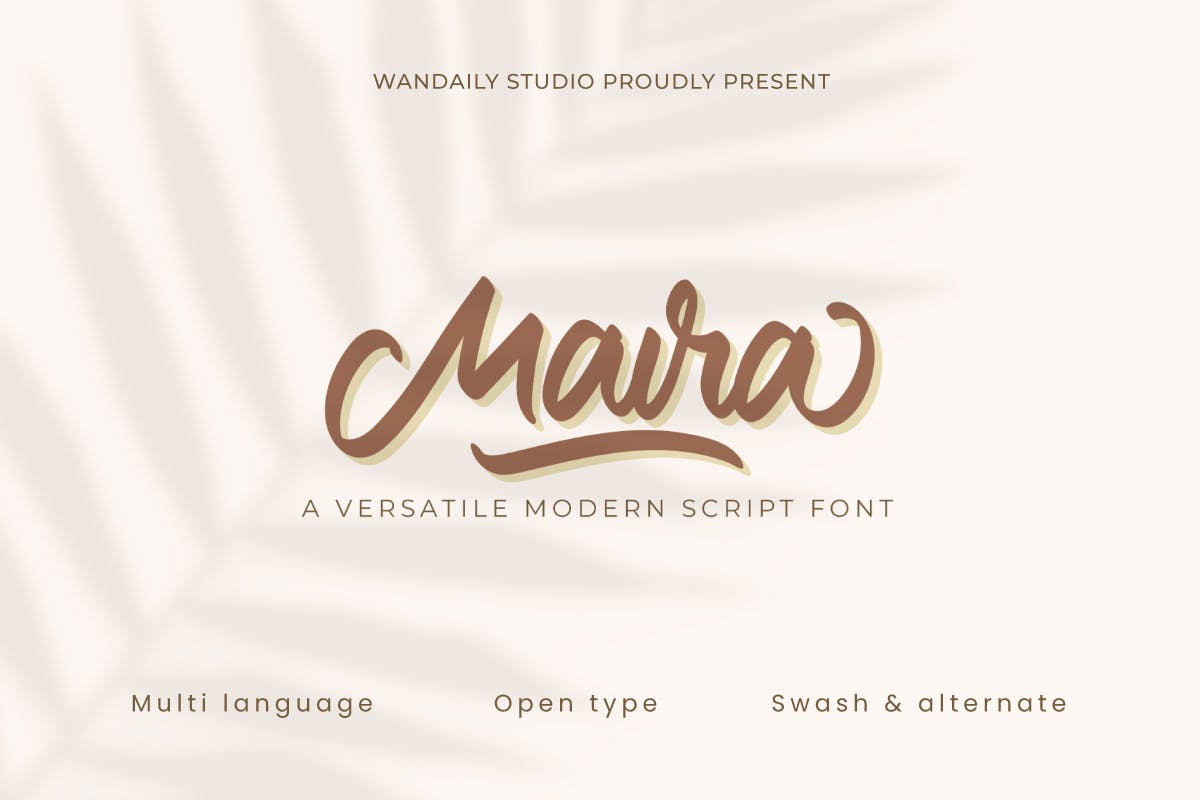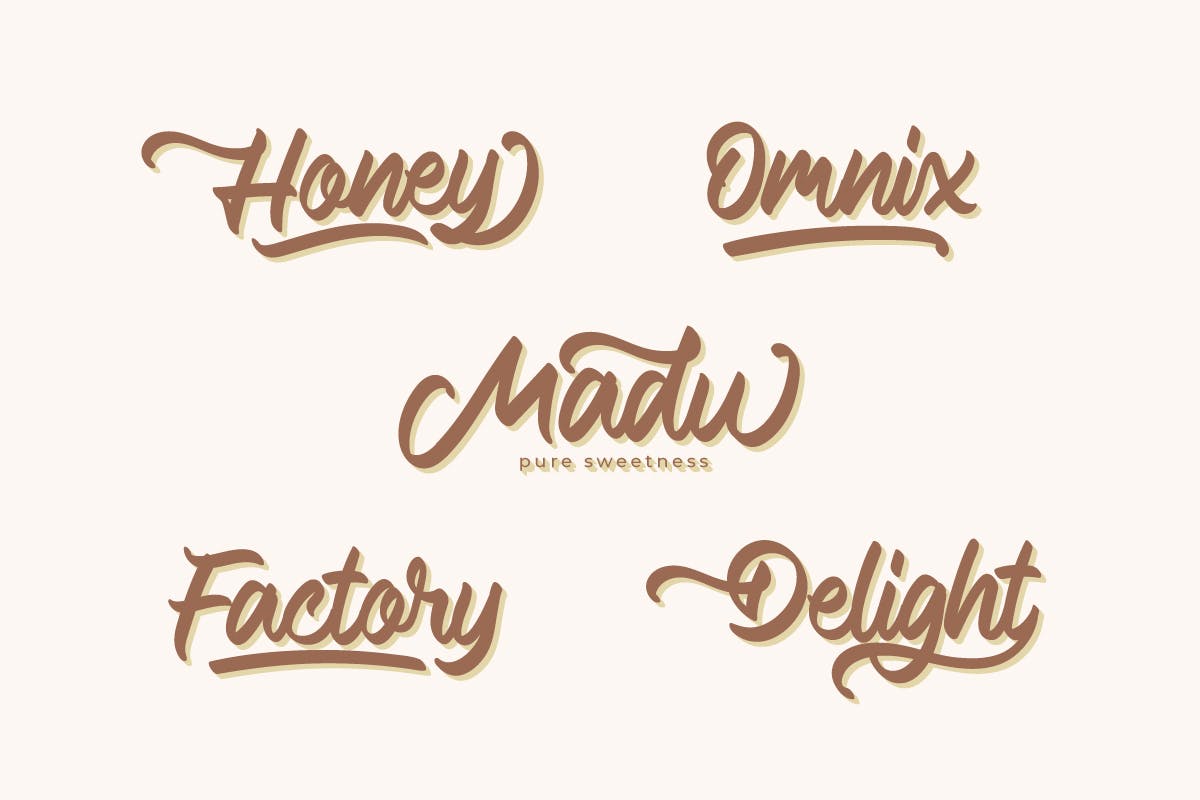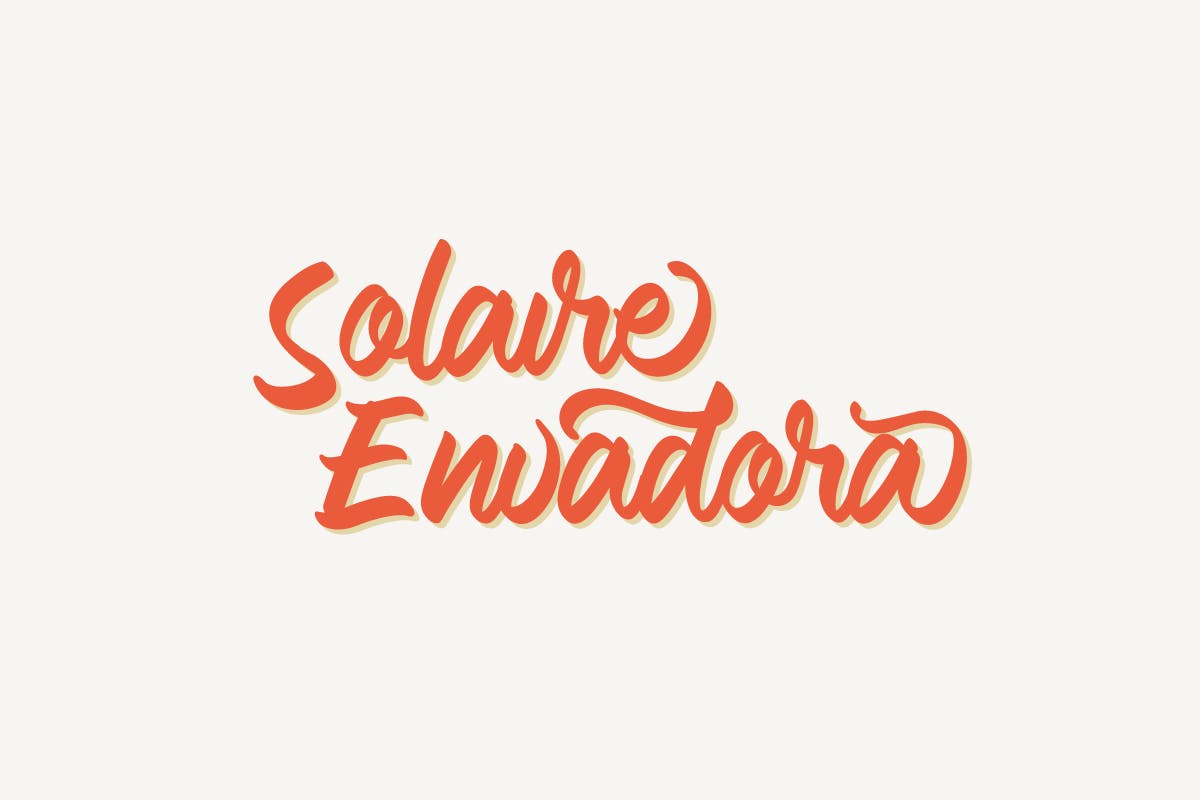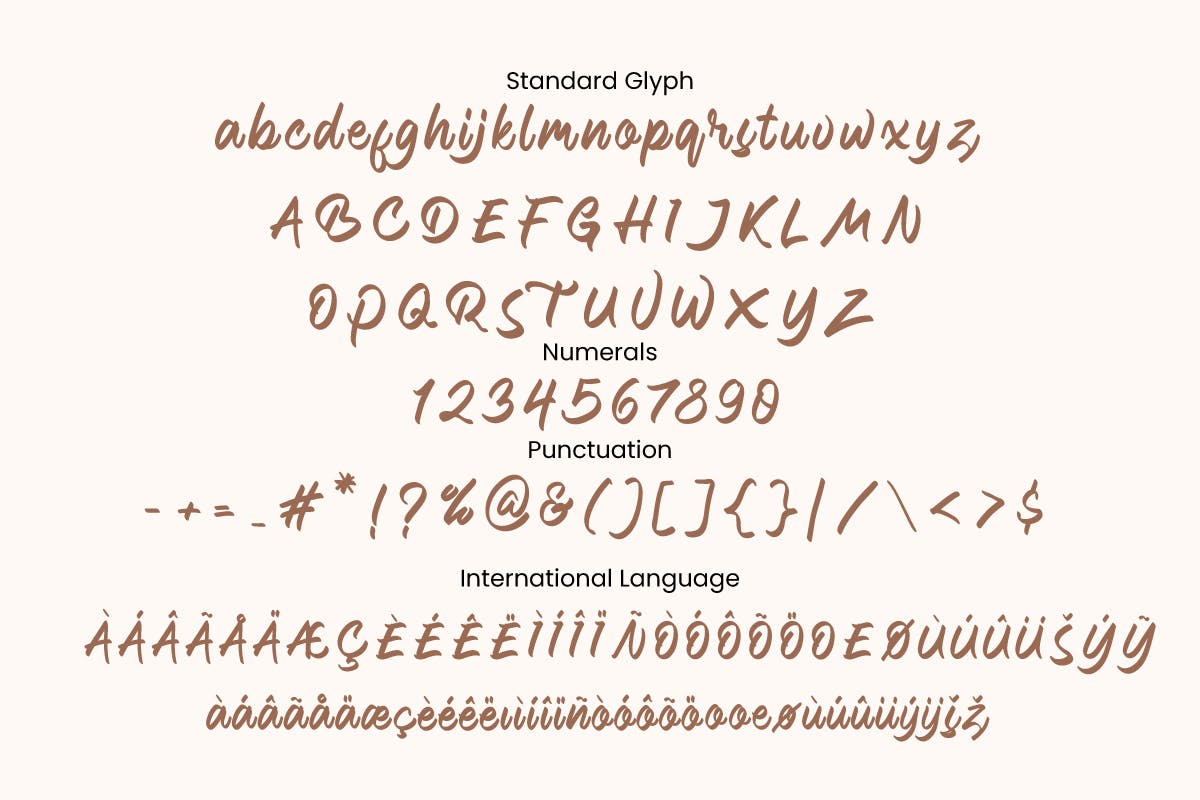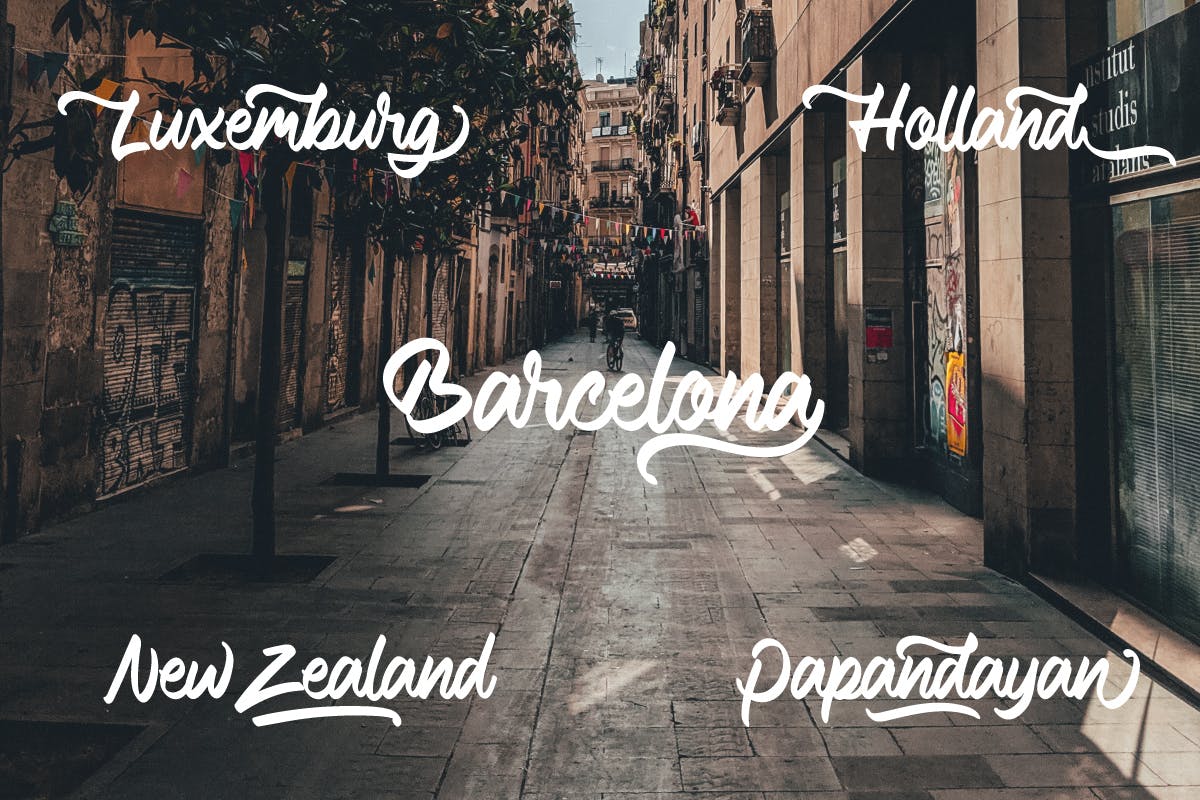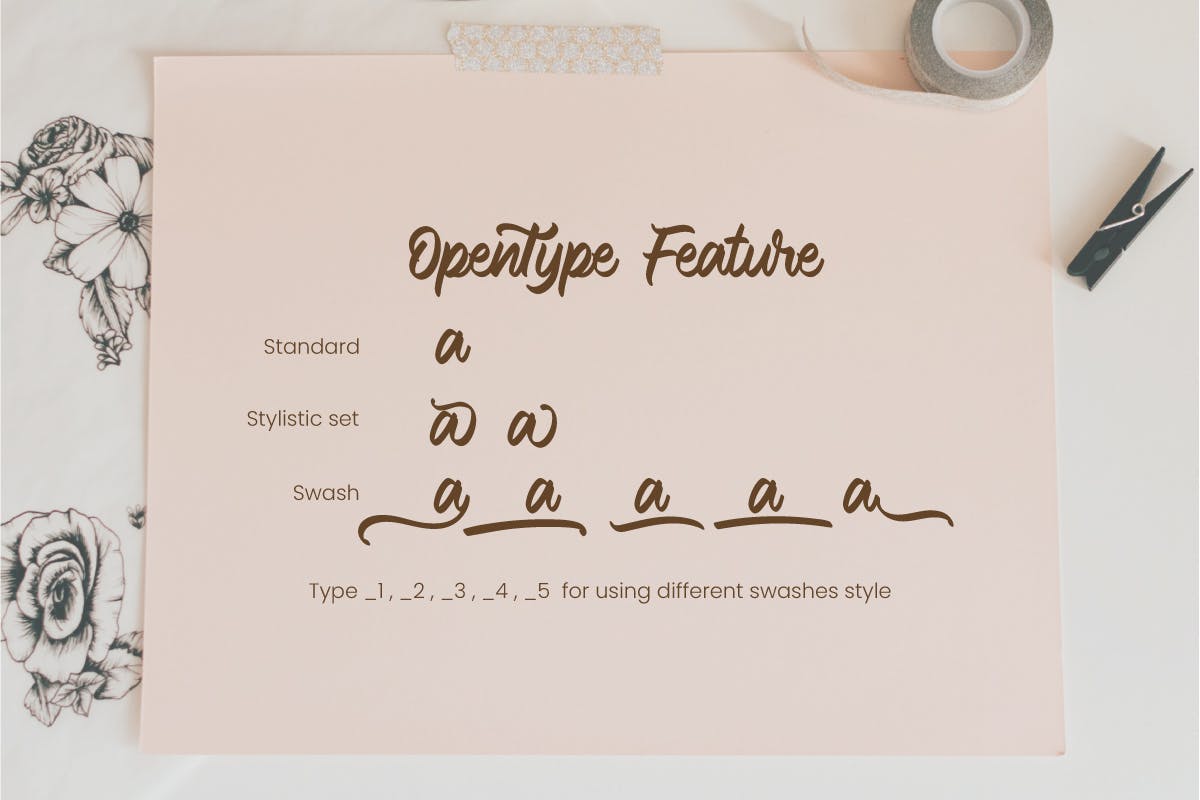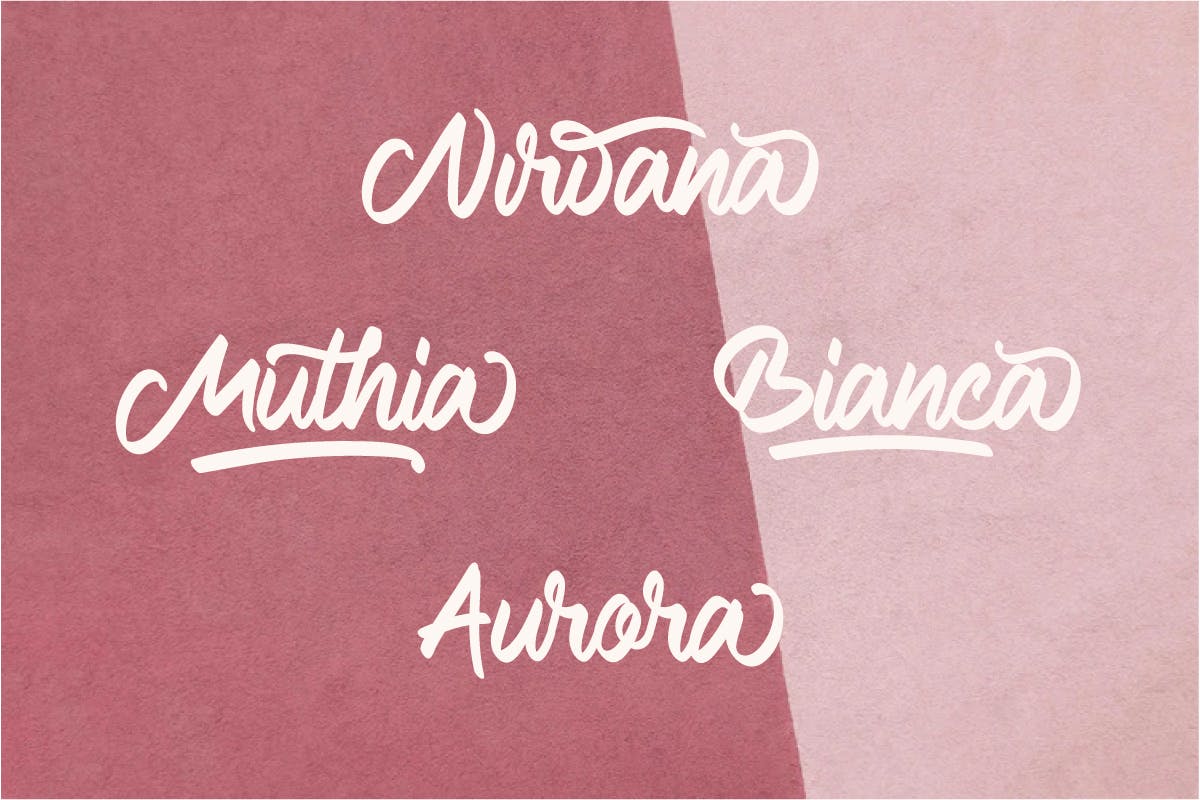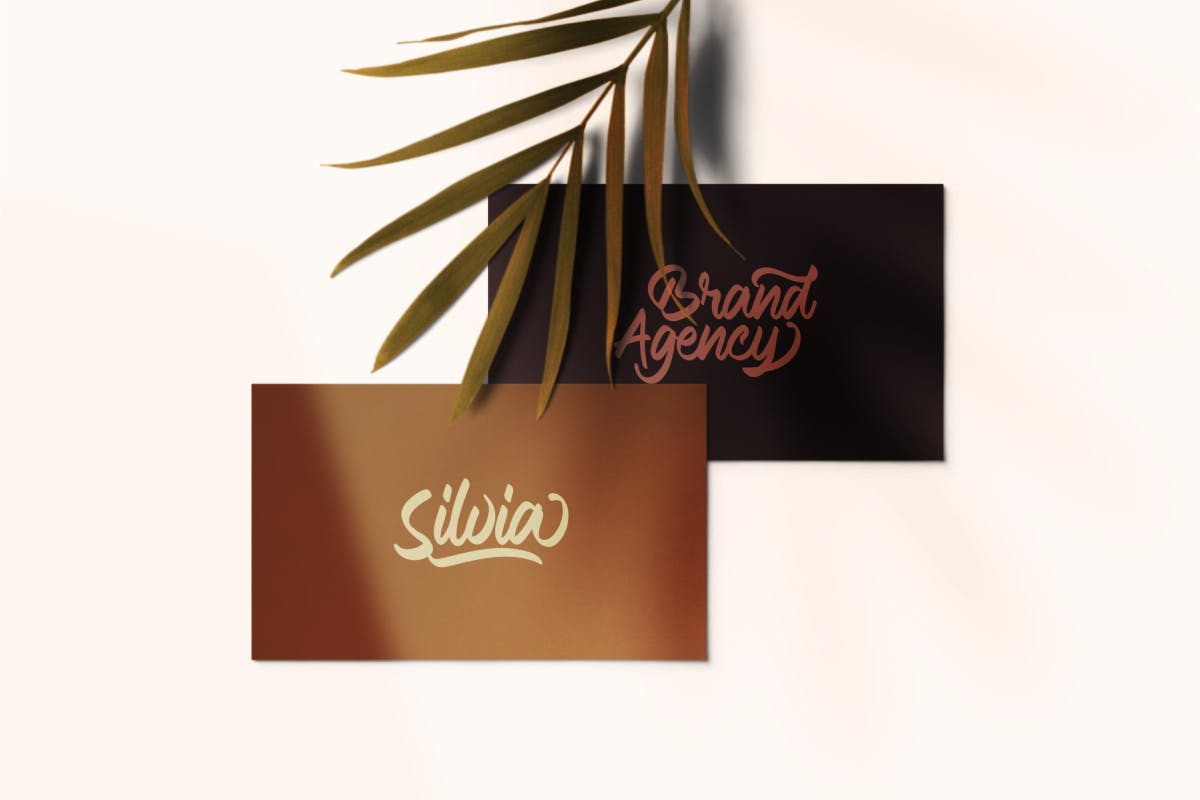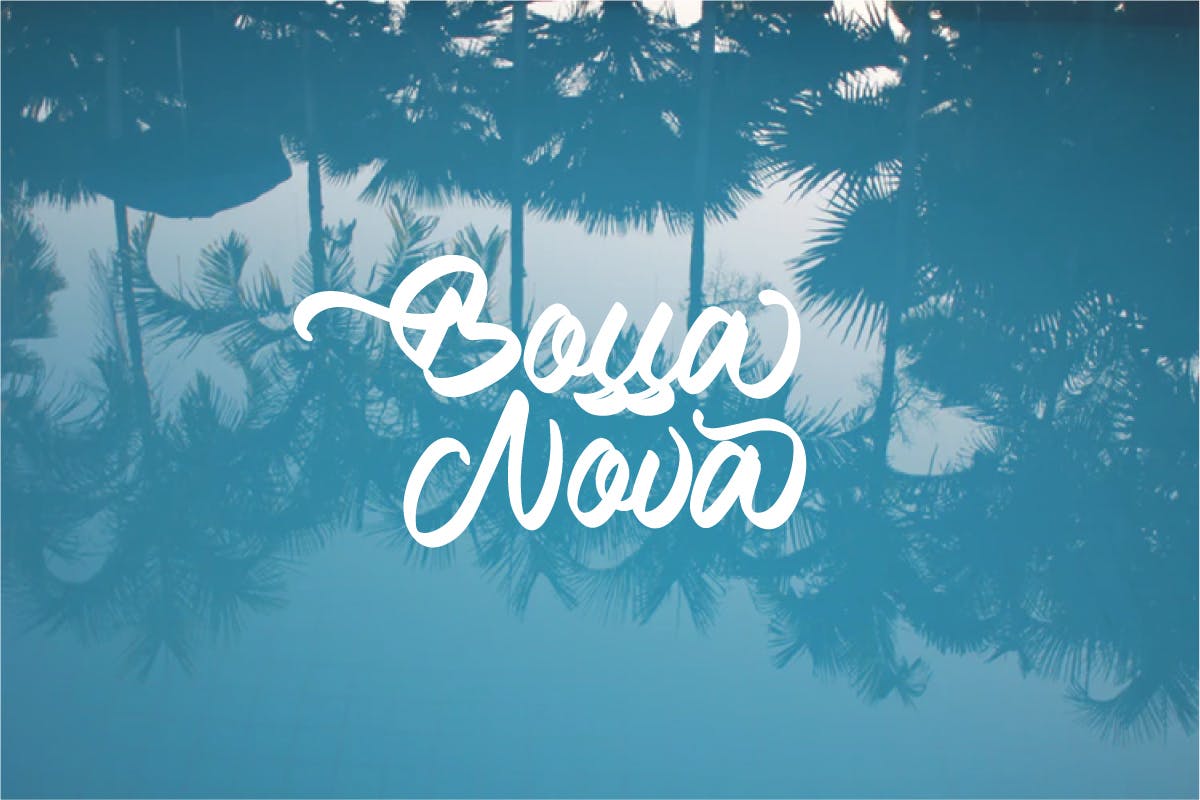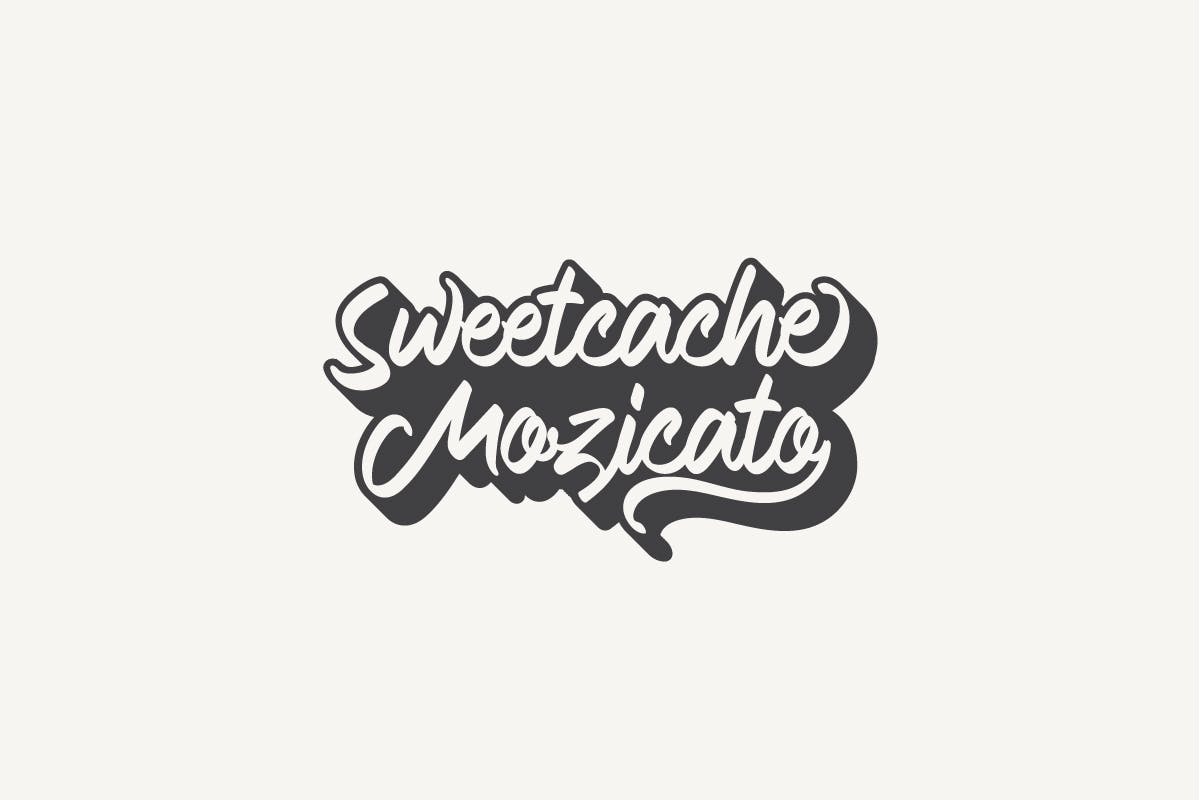
Free Maira Script Font
Introducing a new font style from Wandaily Studio. It is Free Maira Script Font. It has a variety of alternate characters and bonus swash, making this font perfect for your design project. This free font is suitable for use as a logo, t-shirts/apparel, branding, business cards, and more. It is also coming with both format files which are OTF and TTF. However, this free font is limited for use, only allowed for personal use. But, if you want to get the commercial license, please go to the author page or contact the email hello@wandaily.com.